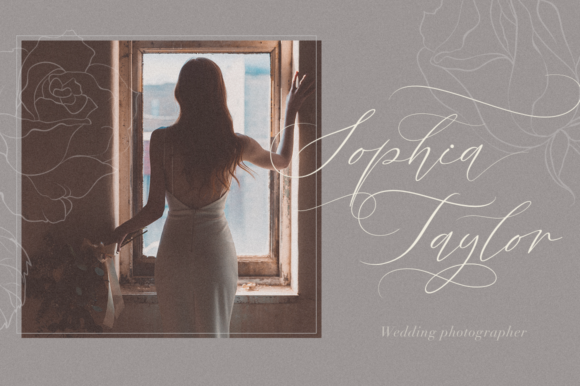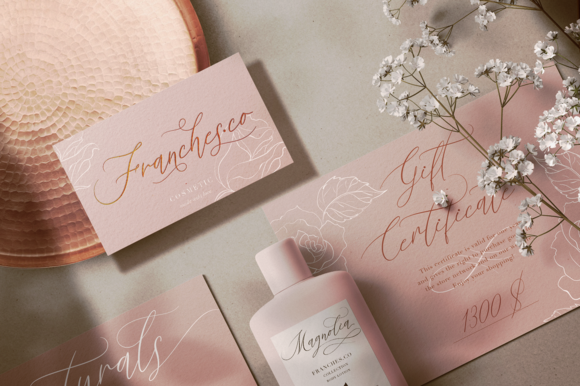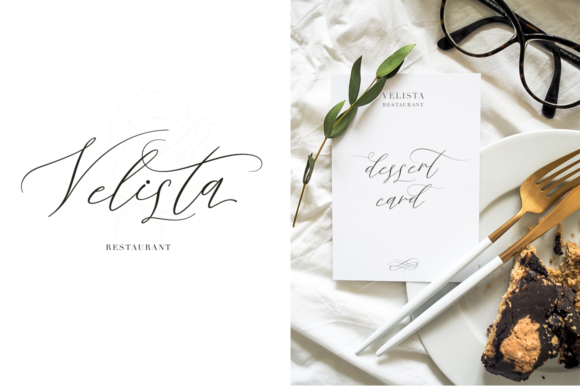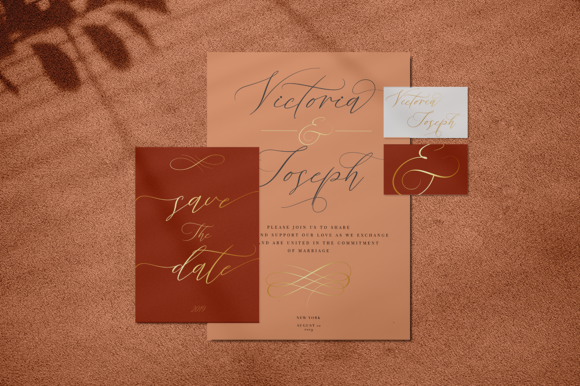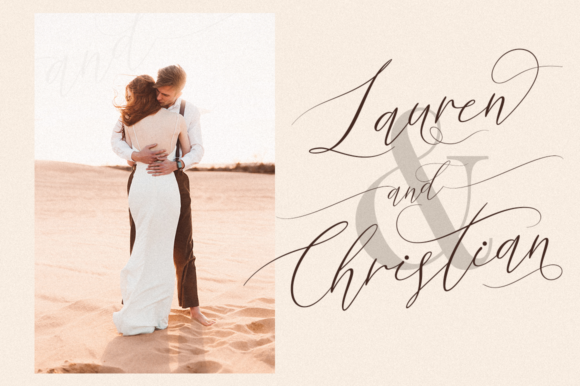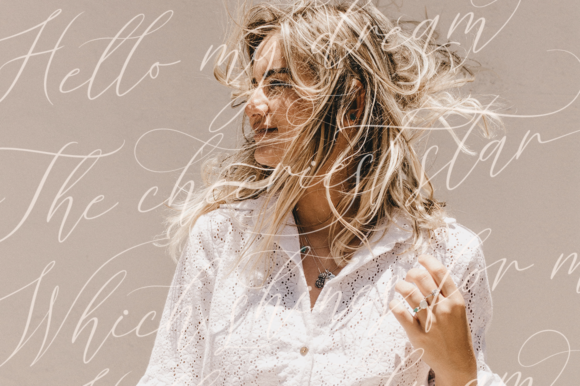
Introducing Beauty Flowers Font: Elevate Your Crafts with Elegance
Are you a designer, crafter, or DIY enthusiast looking for a font that exudes romance and sophistication? Look no further than the Beauty Flowers Font! This stunning script font is designed to add a touch of elegance to any crafts project, making it perfect for a wide range of creative endeavors.
What is Beauty Flowers Font?
Beauty Flowers is an incredibly romantic script with a beautiful feel. Its flowing curves and delicate lines evoke a sense of whimsy and charm, making it ideal for projects that require a touch of femininity and sophistication. Whether you’re creating wedding invitations, greeting cards, or social media graphics, this font is sure to impress.
Key Features of Beauty Flowers Font
- Romantic and Elegant Design: Beauty Flowers Font boasts a beautiful, cursive script design that’s perfect for creating romantic and elegant projects.
- Versatile and Adaptable: This font is suitable for a wide range of crafts projects, from paper crafting and scrapbooking to digital design and social media graphics.
- Easy to Read and Write: Despite its ornate design, Beauty Flowers Font is surprisingly easy to read and write, making it perfect for creating quotes, phrases, and short paragraphs.
- Scalable and Flexible: This font is highly scalable, allowing you to use it for a variety of projects, from small icons to large banners.
Uses for Beauty Flowers Font
The possibilities are endless when it comes to using Beauty Flowers Font! Here are a few ideas to get you started:
- Wedding Invitations and Stationery: Add a touch of romance and elegance to your wedding invitations, save-the-dates, and other stationery with this beautiful font.
- Greeting Cards and Gift Tags: Create stunning greeting cards and gift tags for special occasions like birthdays, anniversaries, and holidays.
- Social Media Graphics: Use Beauty Flowers Font to create eye-catching social media graphics, quotes, and inspirational messages that will engage your audience.
- Scrapbooking and Paper Crafting: Add a touch of elegance to your scrapbooking and paper crafting projects with this beautiful font.
Tips for Using Beauty Flowers Font
To get the most out of Beauty Flowers Font, here are a few tips to keep in mind:
- Pair with Simple Backgrounds: Let the font be the star of the show by pairing it with simple backgrounds that won’t compete for attention.
- Experiment with Colors: Try pairing the font with different colors to create unique and eye-catching combinations.
- Use for Headings and Titles: Beauty Flowers Font is perfect for headings and titles, adding a touch of elegance and sophistication to your projects.
In conclusion, Beauty Flowers Font is a stunning script font that’s perfect for designers, crafters, and DIY enthusiasts looking to add a touch of elegance and romance to their projects. With its beautiful design, versatility, and ease of use, this font is sure to become a favorite in your creative toolkit. So why wait? Download Beauty Flowers Font today and start creating beautiful, elegant projects that will leave a lasting impression!